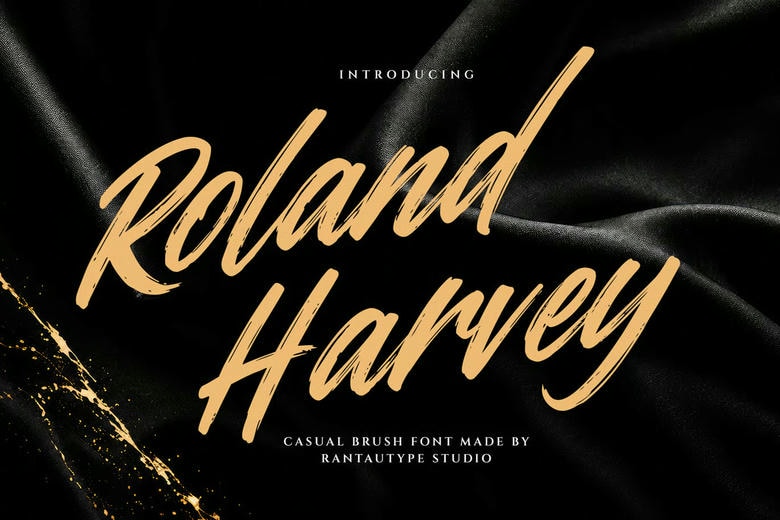
Roland Harvey Font
Roland Harvey is a casual brush font that combines creative freedom with a modern touch. Its handwritten style feels energetic, expressive, and stylish. The letters flow like paintbrush strokes.
Roland Harvey works well for creative projects such as logos, titles, branding, invitations, wedding designs, magazines, social media posts, ads, quotes, packaging, product designs, labels, and photography.
Roland Harvey Casual Brush Font